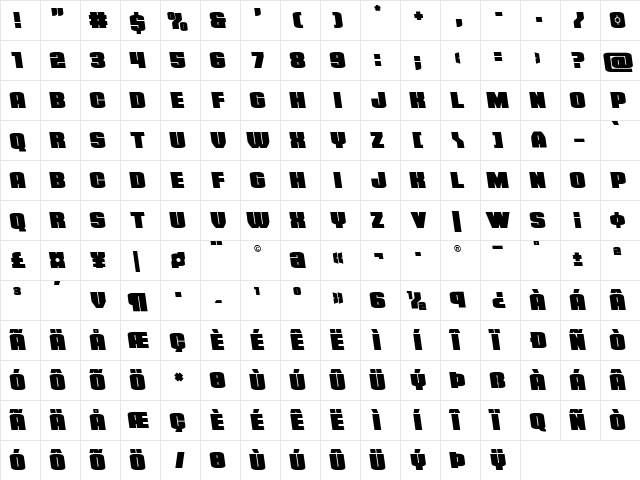
Elephant Gun Semi-Leftalic Regular
Design Context for Elephant Gun Semi-Leftalic Typeface
Elephant Gun Semi-Leftalic is a composed and adaptable typeface that performs quietly and consistently across a wide range of design contexts. The slanted form adds forward momentum and visual energy.
Pro Tip: Try Elephant Gun Semi-Leftalic for annotation and caption copy alongside an upright companion — the contrast in angle creates a dynamic but ordered typographic system.